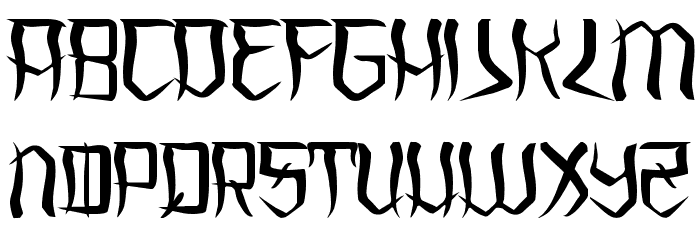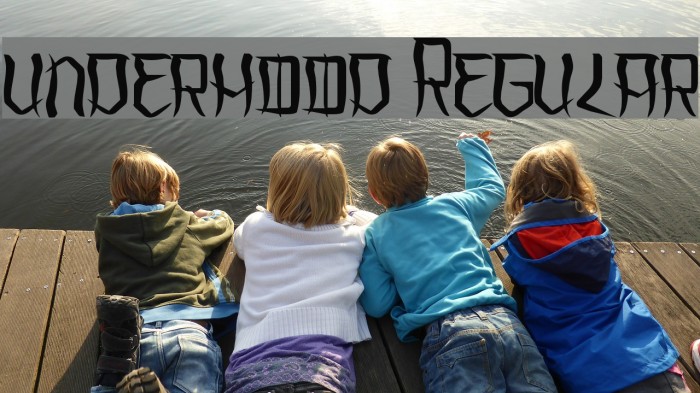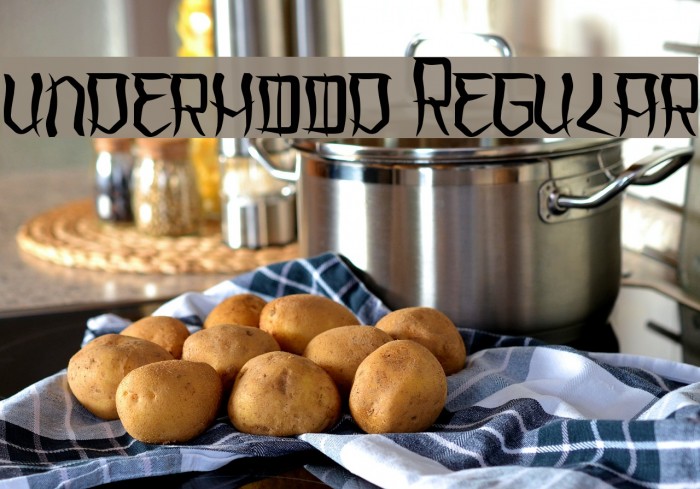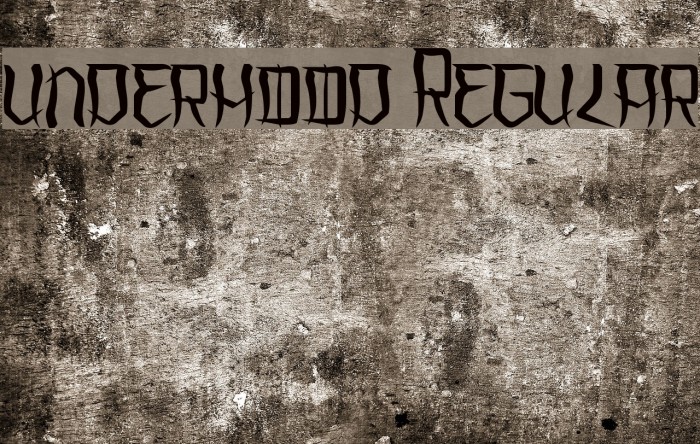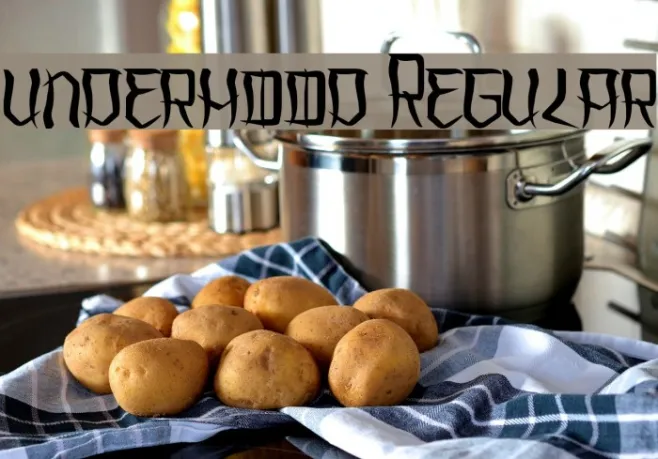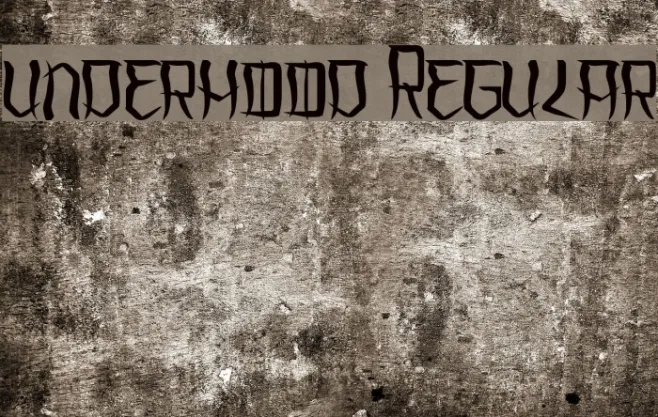
underhood Regular Font
This font features a bold and edgy design, characterized by sharp, angular strokes and a slightly aggressive aesthetic. The uppercase and lowercase letters maintain a consistent style, with pointed edges and a dynamic flow that suggests movement. The numerals and special characters are crafted with the same attention to detail, ensuring a cohesive look across all glyphs. The font's unique style makes it stand out, offering a modern twist on traditional typography with a hint of rebellious flair.
A bold, edgy font with sharp, angular strokes and a dynamic, modern aesthetic.
- Proposed Projects: Ideal for projects that require a bold statement, such as album covers, posters, branding for edgy or alternative products, and any design that seeks to capture attention with a modern, rebellious vibe.
- Overall Style: Modern, Edgy